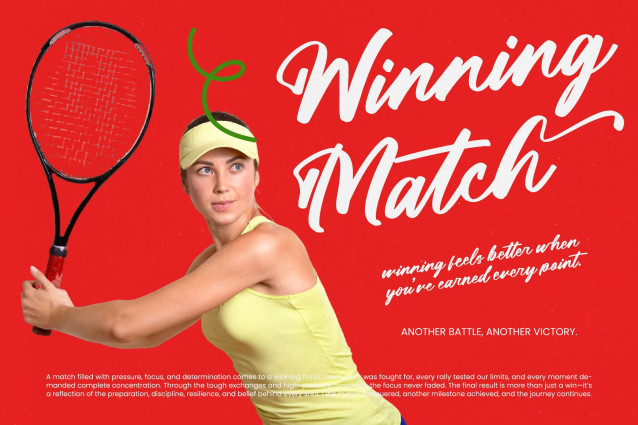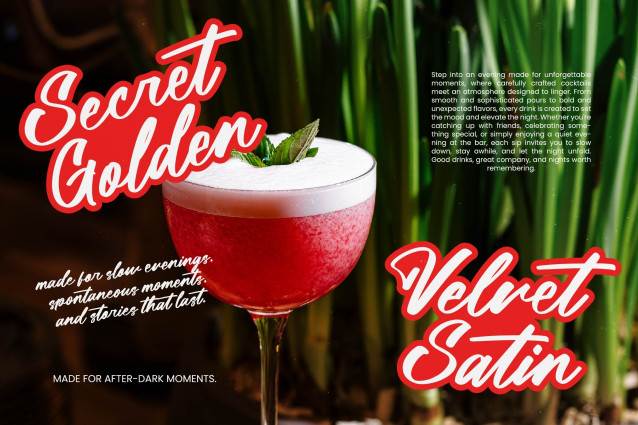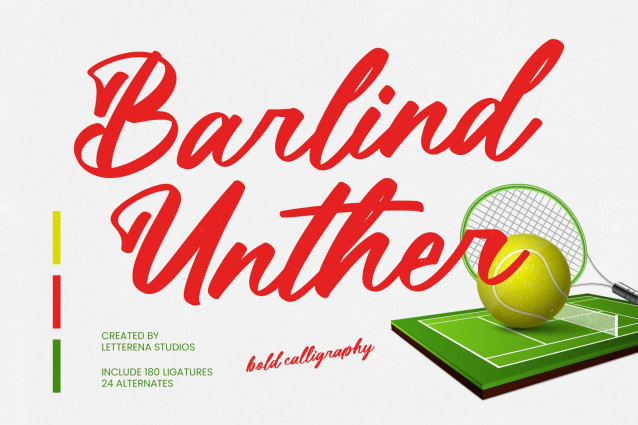
Barlind Unther – Bold Calligraphy is a powerhouse of modern script design, offering a hand-drawn aesthetic that feels both organic and authoritative. Its high-contrast strokes and fluid transitions make it the ultimate choice for creators seeking to infuse their work with a sense of confident motion and unparalleled elegance.
Elevate your design projects through superior versatility and high-end appeal in every application. This typeface is perfect for luxury branding, premium packaging, and dynamic sports apparel where a strong visual identity is paramount. Beyond these, Barlind Unther – Bold Calligraphy excels in editorial design and social media marketing, providing the visual weight necessary to stop the scroll and leave a lasting impression on your target audience.